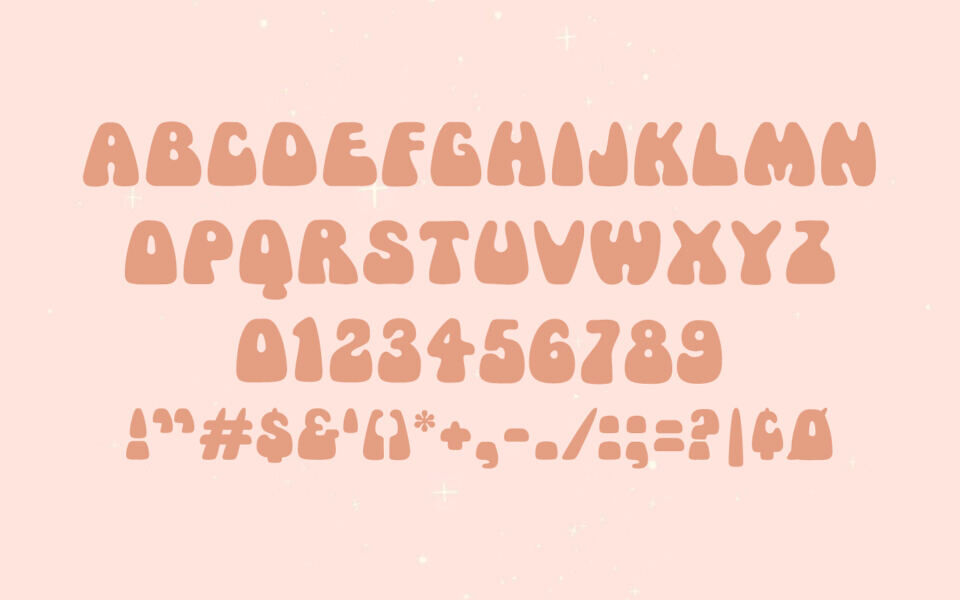
Mama is a bold, eye-catching display font with a distinctive geometric style and rounded forms. Its thick lines and playful curves create a retro-futuristic look, making it ideal for headlines, logos, and posters.
Inspired by modern and psychedelic aesthetics, it delivers strong visual impact while maintaining readability. Perfect for creative projects, Mama adds personality and a unique, groovy vibe to any design.